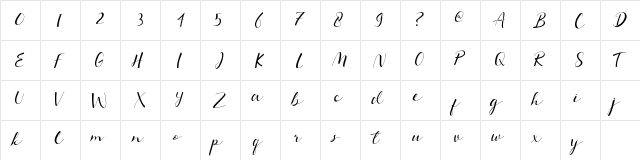
Taniya Script Regular
Design Context for Taniya Script Typeface
Taniya Script flows with the natural rhythm of handwritten lettering, making it ideal for designs that call for warmth and personal expression.
Font Pairing: Combine Taniya Script with a simple geometric sans for maximum contrast — the tension between flowing curves and clean structure is a classic typographic pairing.
Pro Tip: Use Taniya Script for short runs of text — names, titles, or taglines. Extended body copy in script faces tires the eye quickly.